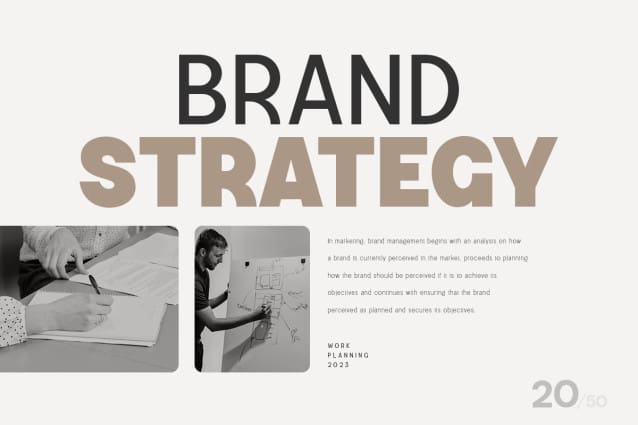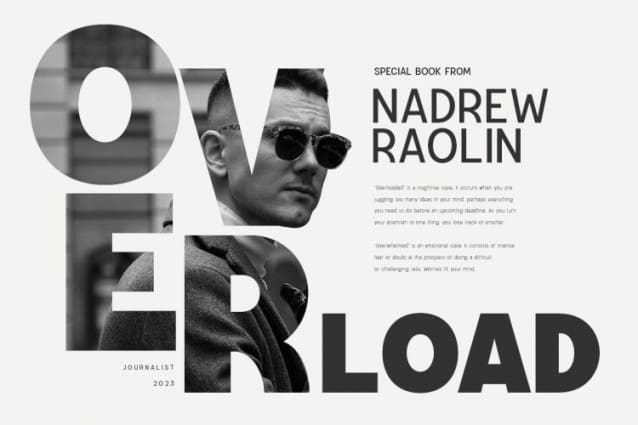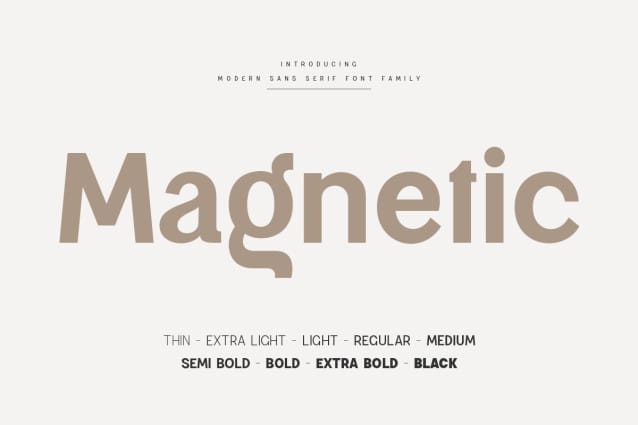
Magnetic Sans Font
Magnetic Sans Font is a sans serif font with modern, corporate, elegant, unique and classy-look. This font crafted specials for logo design projects, ready to use on Logo, Branding, Magazine, Social Media, and Many more that needs modern touches.